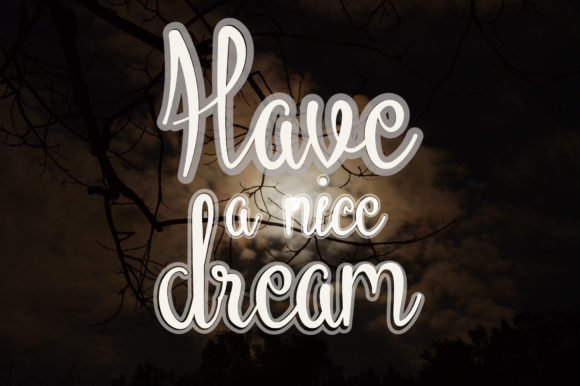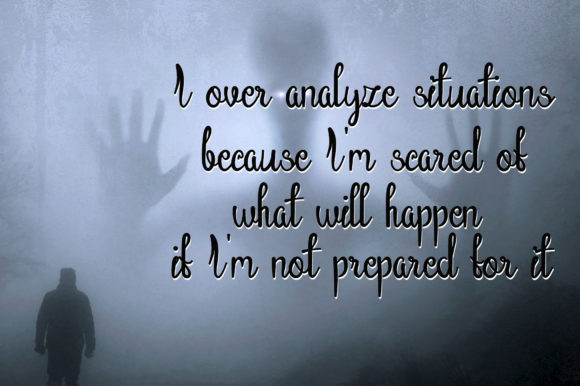
About Happy Halloween Font
Happy Halloween is a charming and playful script font that captures the spirit of the Halloween season. With its unique and captivating style, Happy Halloween is the perfect choice for creating delightful designs, whether it’s for Halloween-themed wedding invitations, spooky stationary art, eye-catching social media posts, or any other creative project. The font’s ravishing and whimsical appearance adds a touch of fun and excitement to your designs, creating an engaging visual experience. Embrace the festive vibes and let Happy Halloween bring a sense of joy and enchantment to your creations. Whether it’s for Halloween or any other occasion that calls for a charming script font, Happy Halloween is sure to impress and captivate.